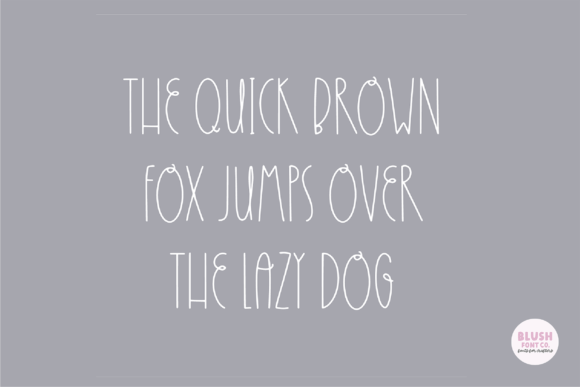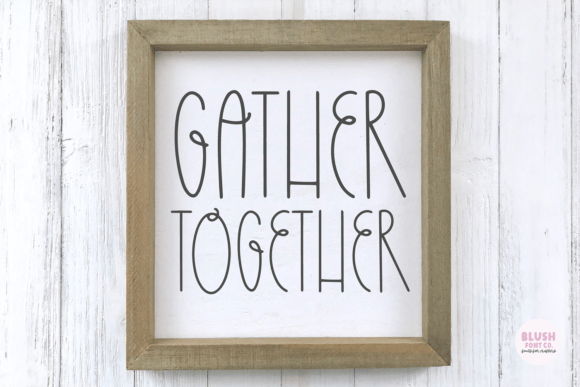
Introduction to Cinnamon Breakfast Farmhouse Font
Cinnamon Breakfast is a tall and skinny decorative font that will complement any script font.
It was made with rustic farmhouse signs and the cottage-core aesthetic in mind This custom-crafted font is perfect for adding a bit of personality and flair to any project.
Key Features of Cinnamon Breakfast Farmhouse Font
Why Choose Cinnamon Breakfast Farmhouse Font?
Cinnamon Breakfast Farmhouse Font offers exceptional quality and versatility, making it a valuable addition to your design toolkit. Whether you’re creating for personal projects or commercial use, Cinnamon Breakfast Farmhouse Font delivers professional results.